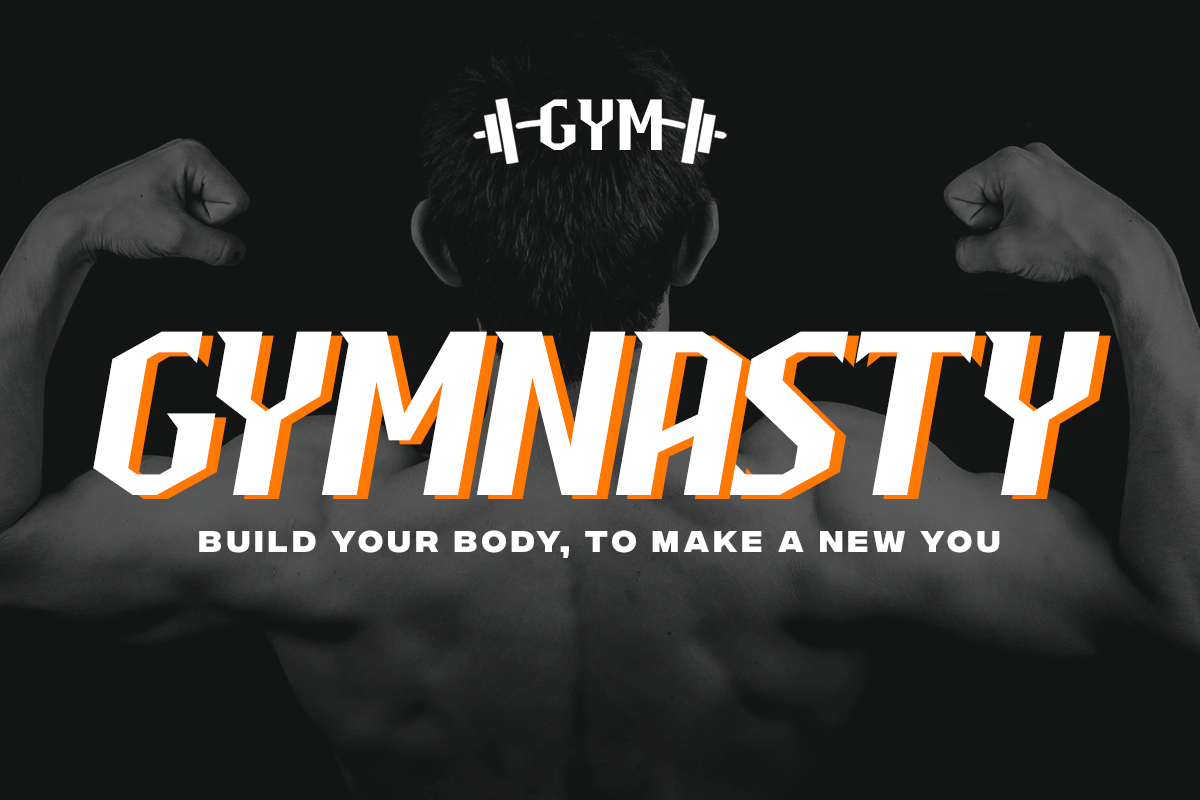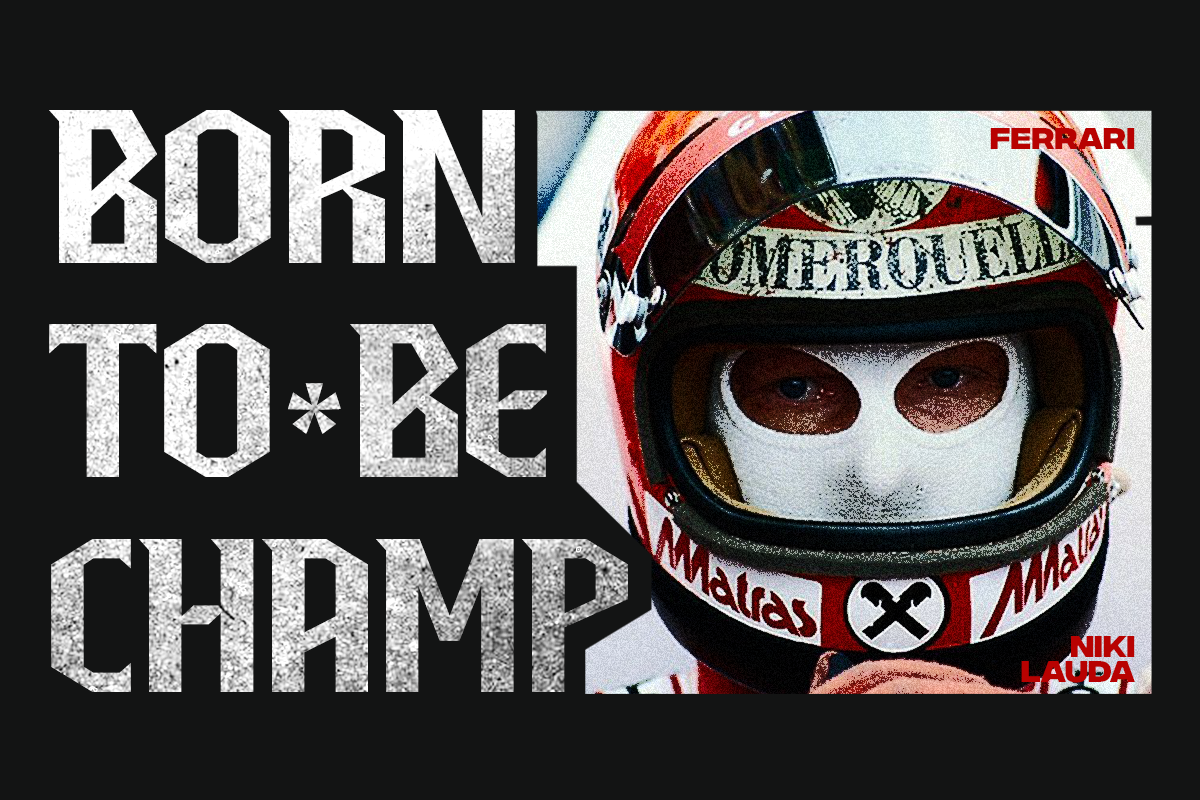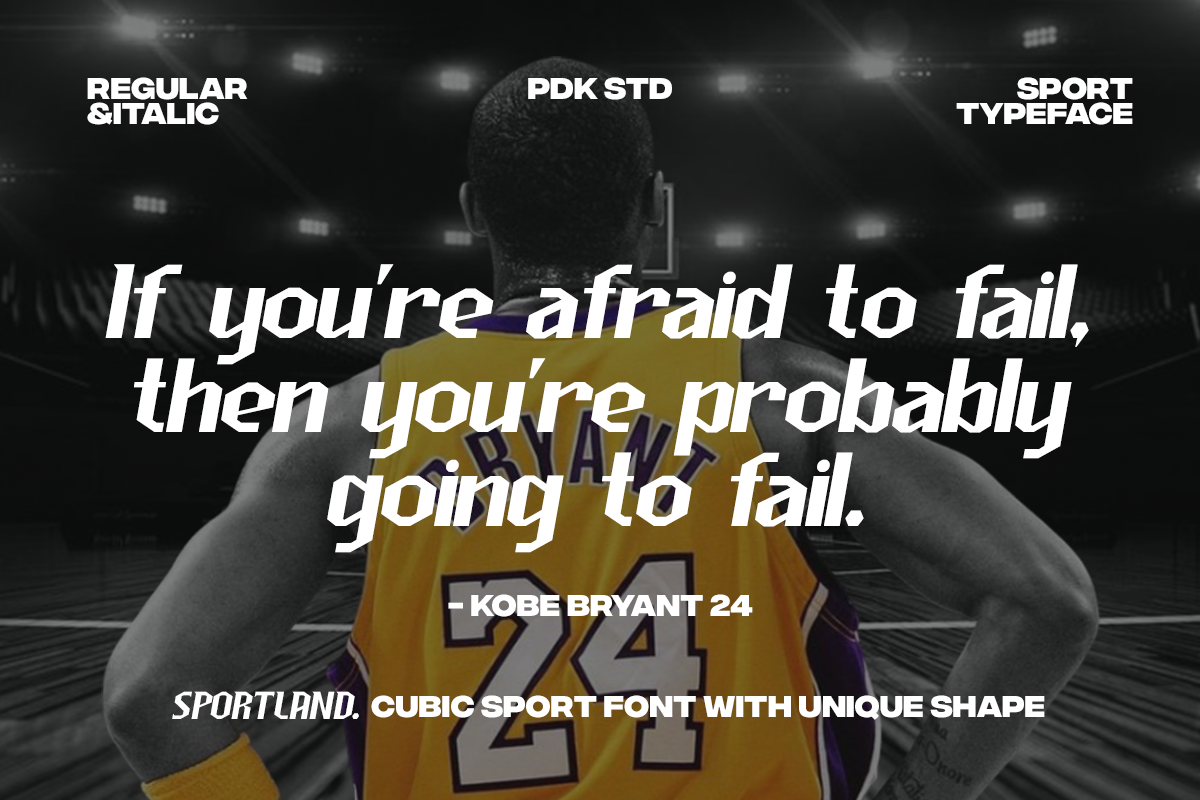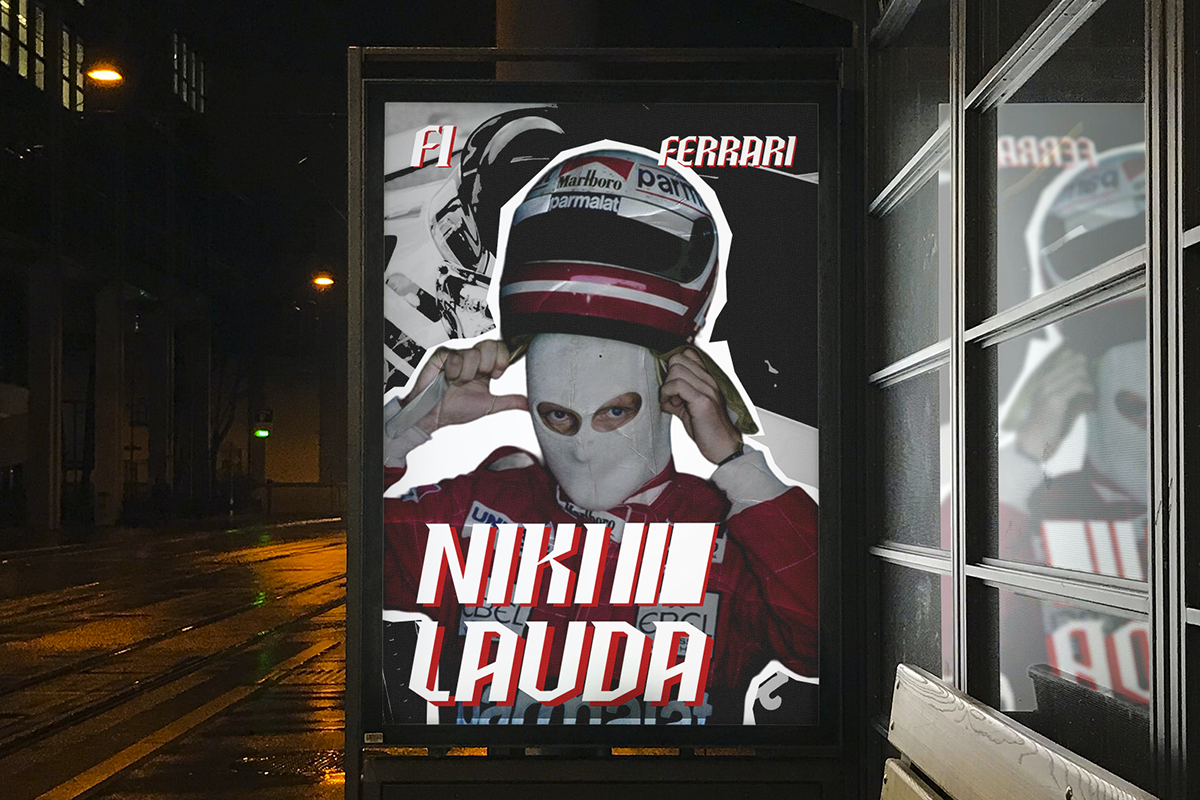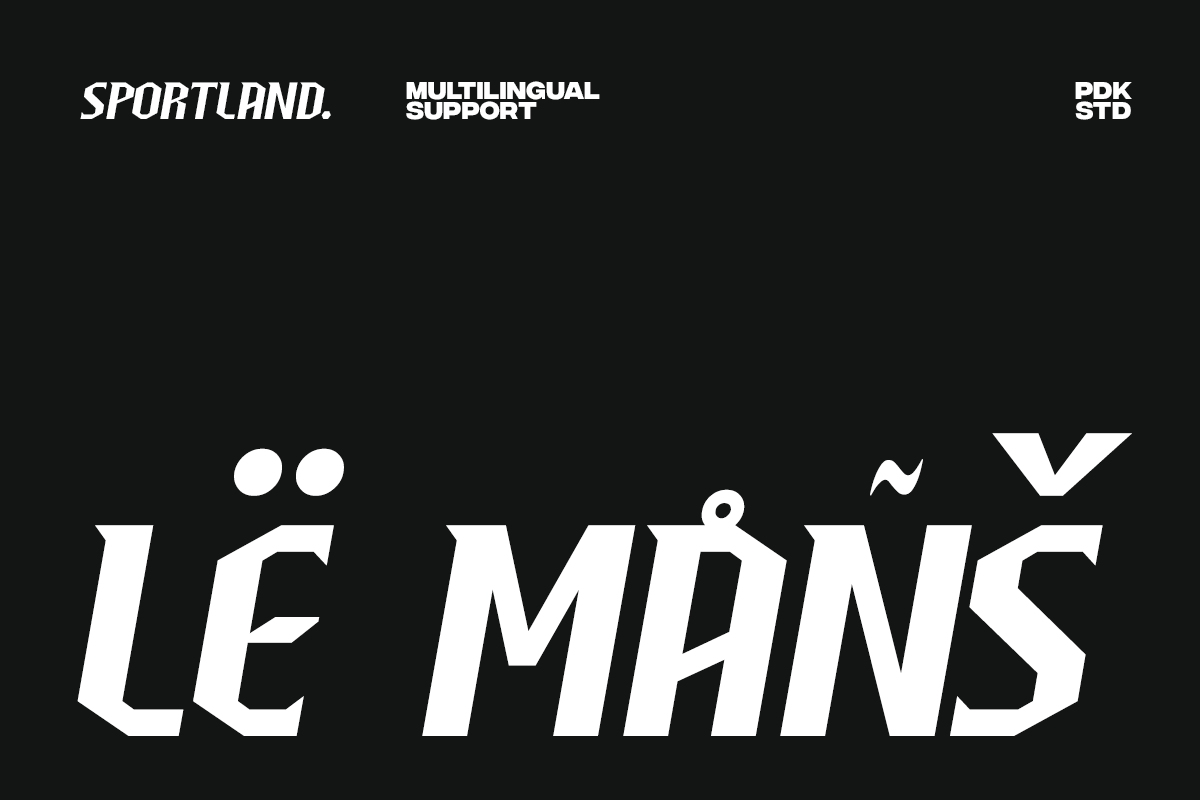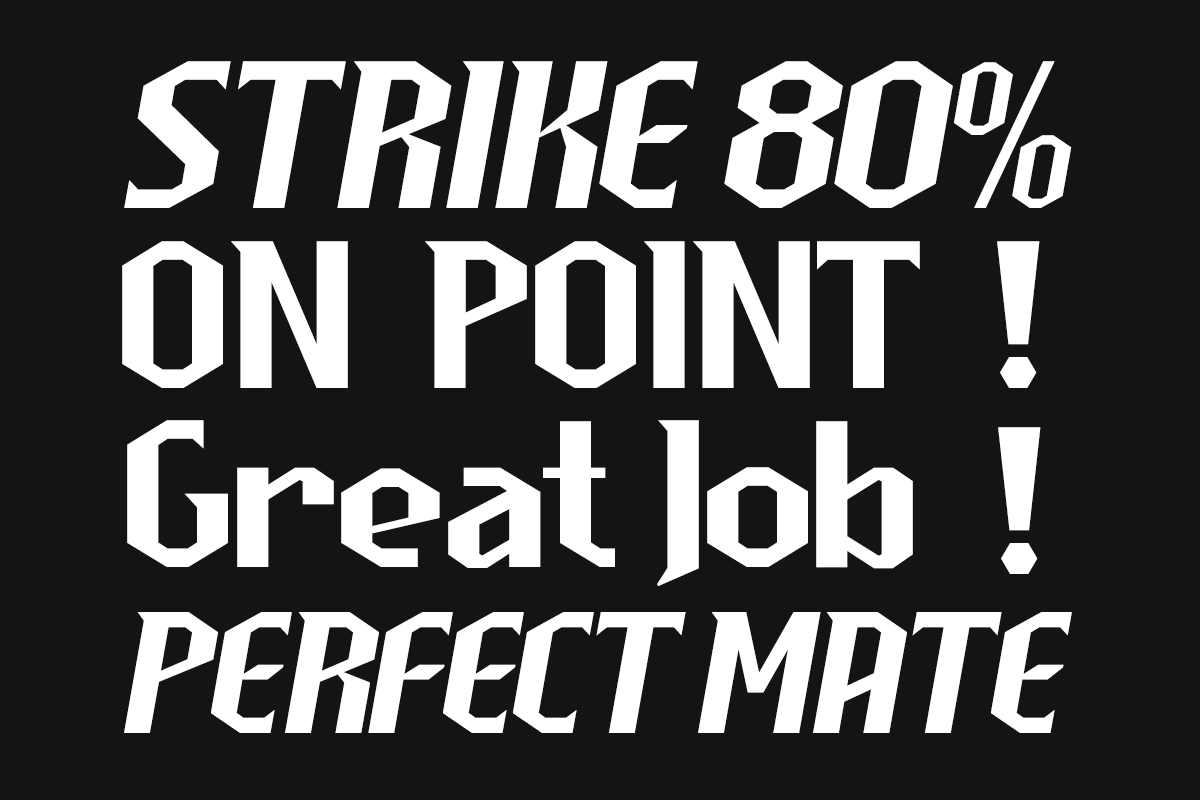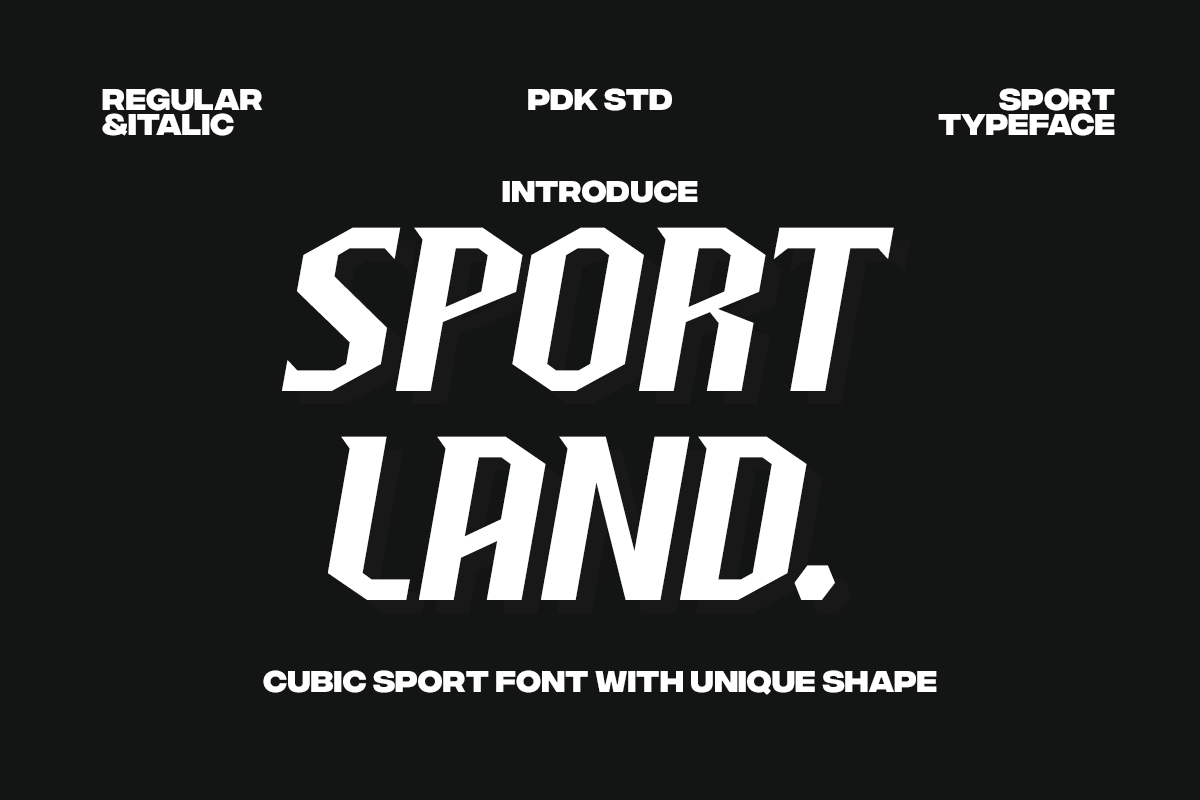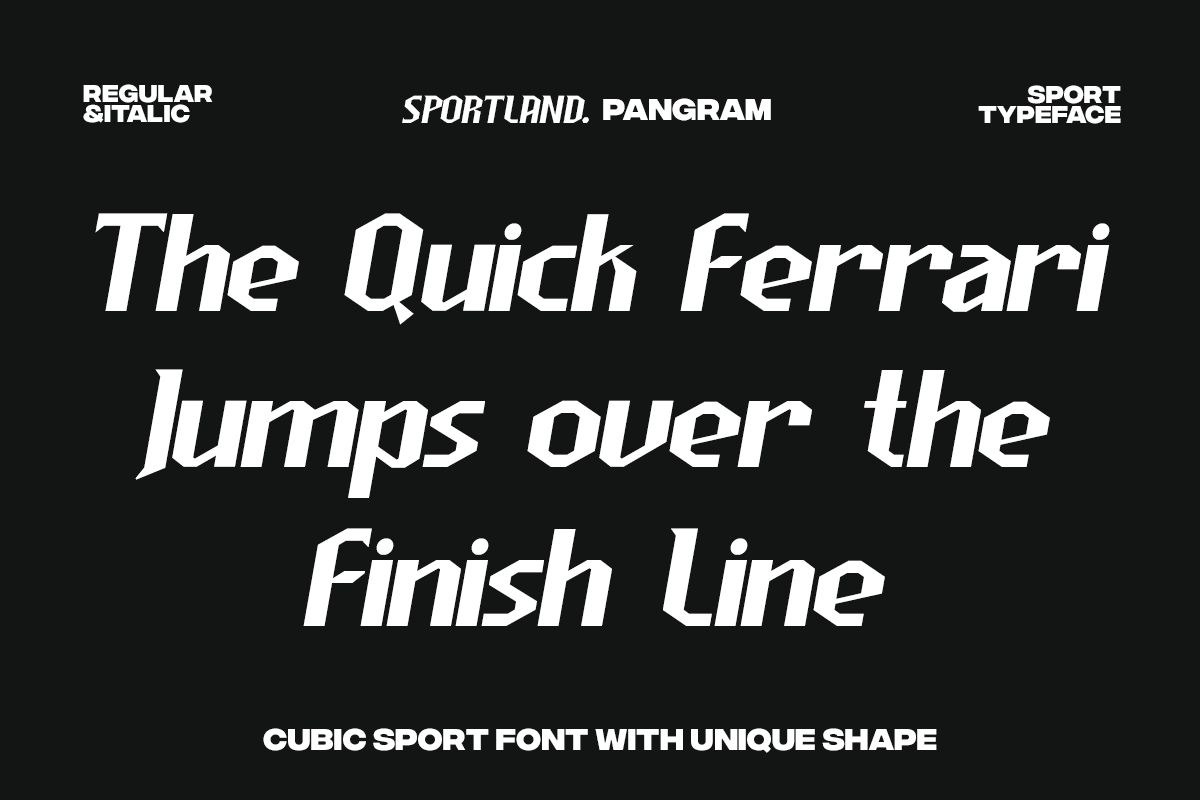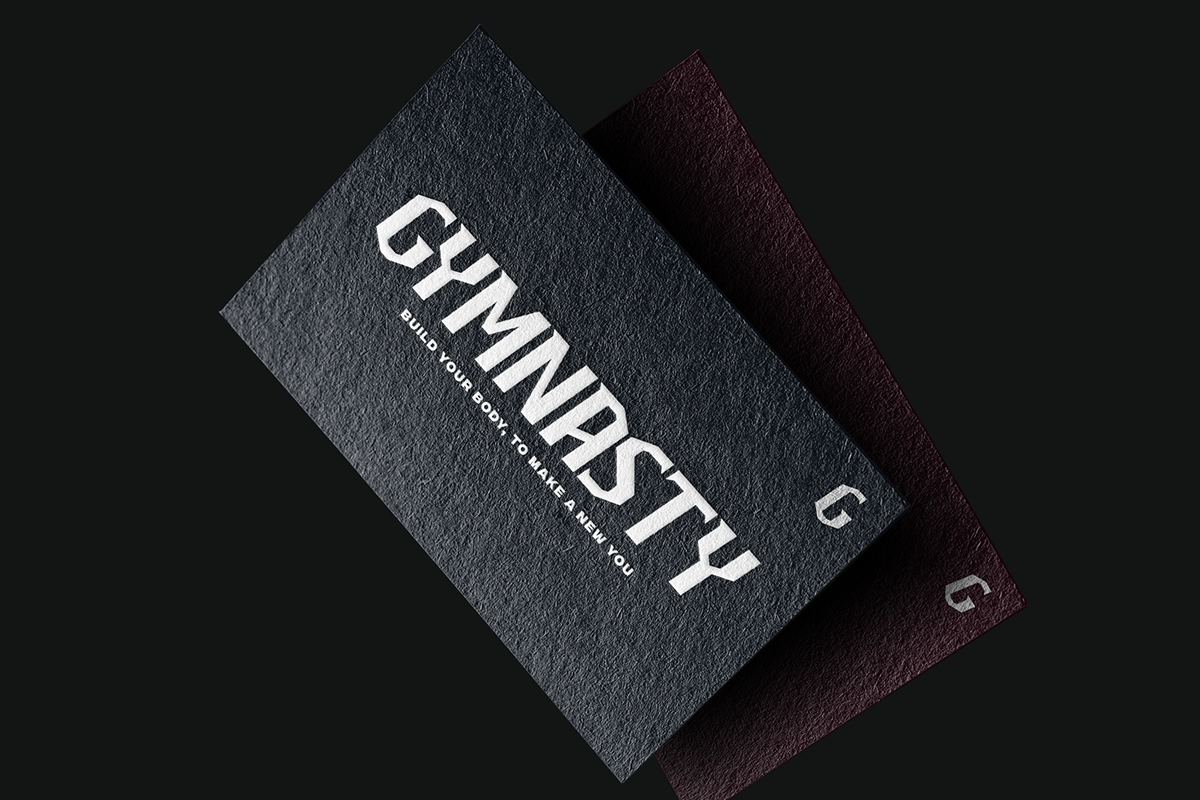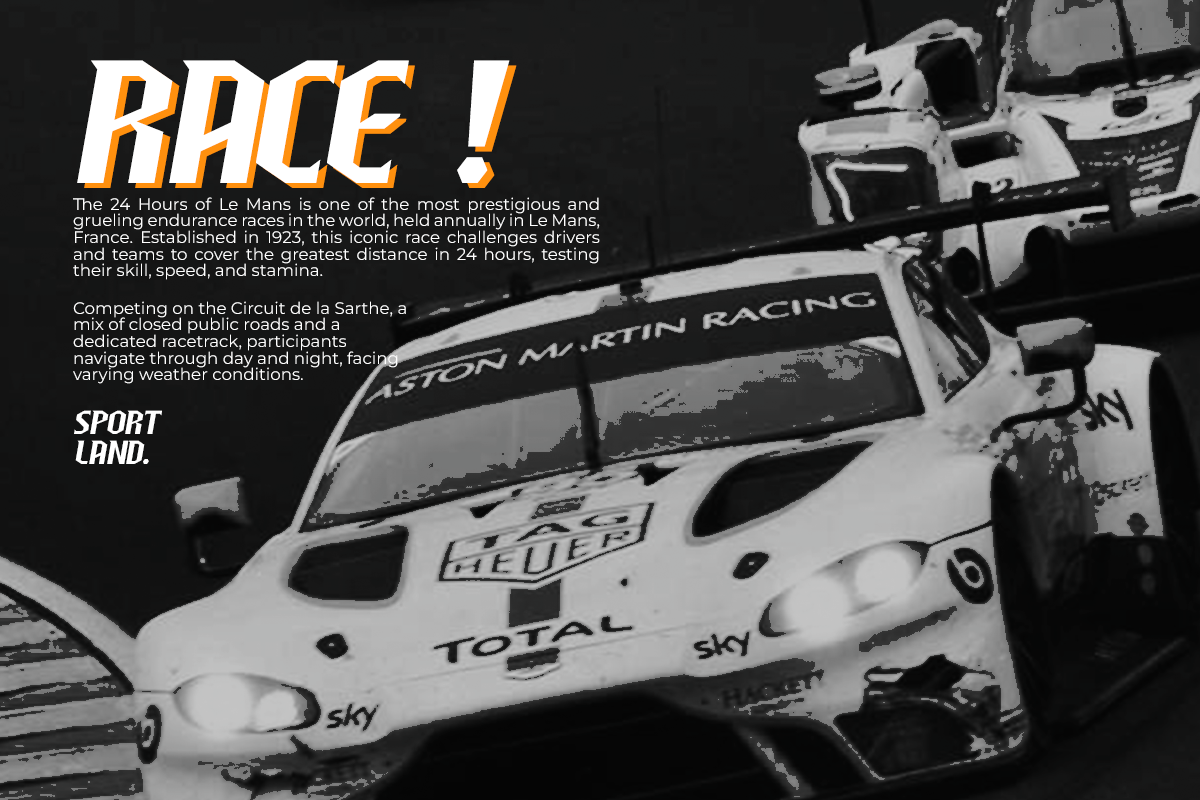
Sportland - Sport Race Font
Introducing Sportland – Cubic Sport Font With Unique Shape. Designed for maximum impact, Sportland features straight upright and wide italic letters, modern letter cutouts, and a dynamic slant that exudes power and speed.
Sportland a perfect for sports headlines in magazines, car racing logos, automotive games, and other dynamic projects, this font captures the essence of movement and energy.
Sportland's bold and massive design ensures excellent readability, making it ideal for creating eye-catching headlines and logos. The unique shapes of the letters set it apart, giving your designs a distinctive and modern edge.
- Uppercase & Lowecase Letters
- Regular and Italic options
- Unique letterforms
- Currencies